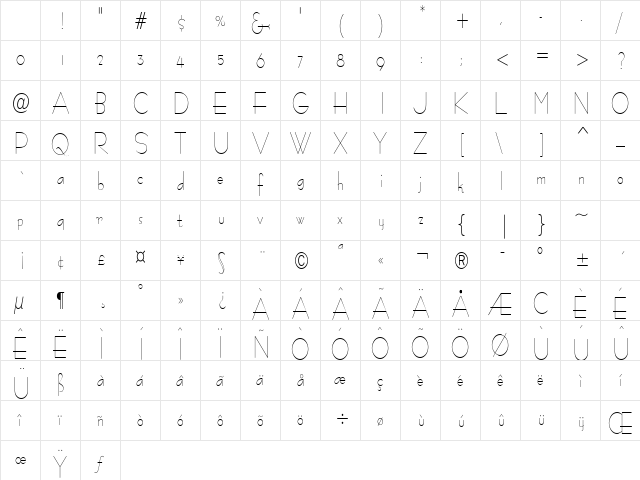
Complete Bernie Condensed Normal glyph index. Displaying only characters natively supported by Bernie Condensed Normal font.
Bernie Condensed is a composed and adaptable typeface that performs quietly and consistently across a wide range of design contexts. Its narrow stance lets it pack a punch even in space-constrained designs.
Pro Tip: Use Bernie Condensed in both headline and body roles to test its range before committing to a single application.